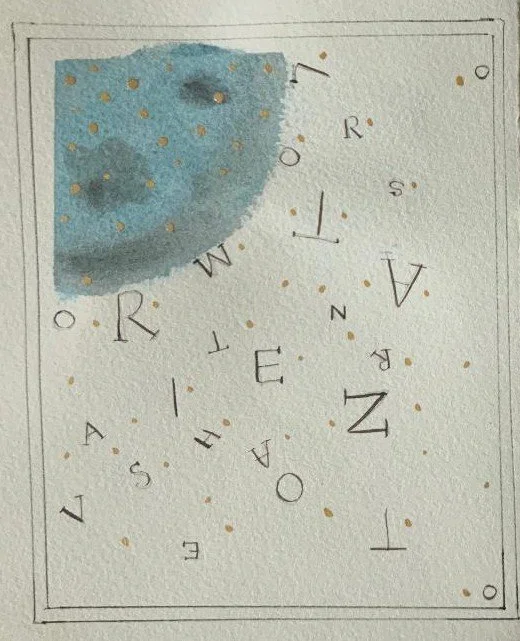
Creating tiny delicate Roman Capitals and allowing their placement to become a major part of the design was the focus of the workshop.
I’ve been curious about cascading capitals and was happy to take Suzi’s class at last. What an excellent, inspirational teacher with the best of smiles. When she worked on her own to demo, I could see how excellent her calligraphy really was. And I enjoyed her sharing trade secrets about tools and supplies!
Suzie is always a delight to learn from. She makes the process so easy to understand and is so generous with all the tips that she has mastered for the Cascading Capitals workshop. The handouts are incredible, and for her to include her demo pages for our book we made is a bonus. She makes learning fun and her ongoing support is priceless. She is truly a gem!
Suzie Beringer never fails to teach me new ways of thinking about letters, and Cascading Capitals is another wonderful example. She organized my thought thoroughly with regard to Romans and proportions. We dissected every letter and then added press and release to our execution to build solid foundation for moving to pen and ink and then cascading. Suzie’s teaching style is gentle, generous: she shares her thoughts, tips, hints about her creative planning, and that is why we are in her class. I am planning ways to use cascading Romans, and one is for a birthday card with balloons.
Suzie’s workshops are well organized, and she maintains a pace that allows for questions and discussion. In the end we bound our compressed handouts, exercise worksheets, and pen/ink play into an interesting book. Her handouts are easy to understand and full of exactly what we need. The generous inclusion of compressed copies for our book is stellar! I appreciate Suzie’s creation of a dynamic environment for learning and studying our subject. I’m already looking for her next offer.